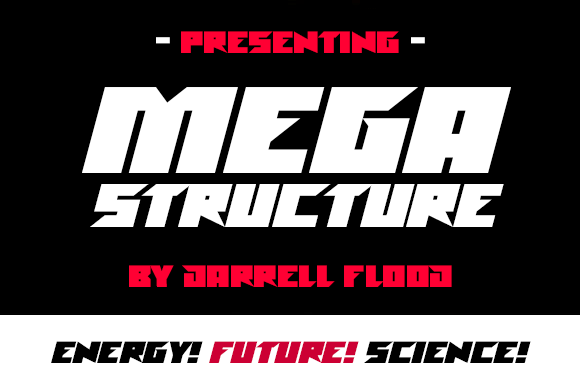
Introduction to Megastructure Font
Imagine you’re working on a high-profile design project, tasked with creating a futuristic theme for a sci-fi movie or a space exploration agency’s website. You’re browsing through design resources, searching for the perfect font to give your project that extra oomph. That’s when you stumble upon the Megastructure Font – an ultra-bold display font that’s out of this world.
With its dynamic, spiky style, the Megastructure Font is the perfect addition to any creative project. Whether you’re working on a space-themed design or simply want to add a touch of futurism to your work, this font is sure to make a statement. And the best part? It’s available for free download, making it a valuable resource for designers on a budget.
Megastructure Font
- High-quality design resource featuring a futuristic and modern aesthetic, ideal for creative projects.
- Features a transparent background, allowing for easy layering and customization in design applications.
- Includes a comprehensive set of glyphs, including uppercase and lowercase letters, numbers, and punctuation marks.
- Perfect for use in graphic design, digital art, and other creative projects that require a unique and futuristic font style.
Honest Review: Megastructure Font
I recently had the chance to experiment with the Megastructure Font, and I must say it’s been a great addition to my design resources. The font’s sleek, futuristic aesthetic makes it perfect for creative projects that need a touch of modernity.
- ✨ The font’s high quality and crispness make it suitable for various design applications, from print materials to digital interfaces.
- ✨ The transparent background feature is a game-changer for designers who want to easily integrate their font with any background.
However, I did encounter a few limitations with the Megastructure Font.
- ⚠️ The font’s character set is somewhat limited, which may not be ideal for projects that require a wide range of special characters.
- ⚠️ Some users may find the font’s futuristic style a bit too bold or overpowering for certain design applications.
Overall, I’m impressed with the Megastructure Font’s potential and versatility. While it may not be the perfect fit for every project, it’s definitely a valuable resource for designers looking for a high-quality, modern font.
How to Use Megastructure Font
Tips for Getting the Most Out of Megastructure Font
To maximize the impact of Megastructure Font, use it in conjunction with high-contrast colors and creative typography.
Megastructure Font is suitable for a wide range of creative projects, including:
- UI/UX design
- Branding